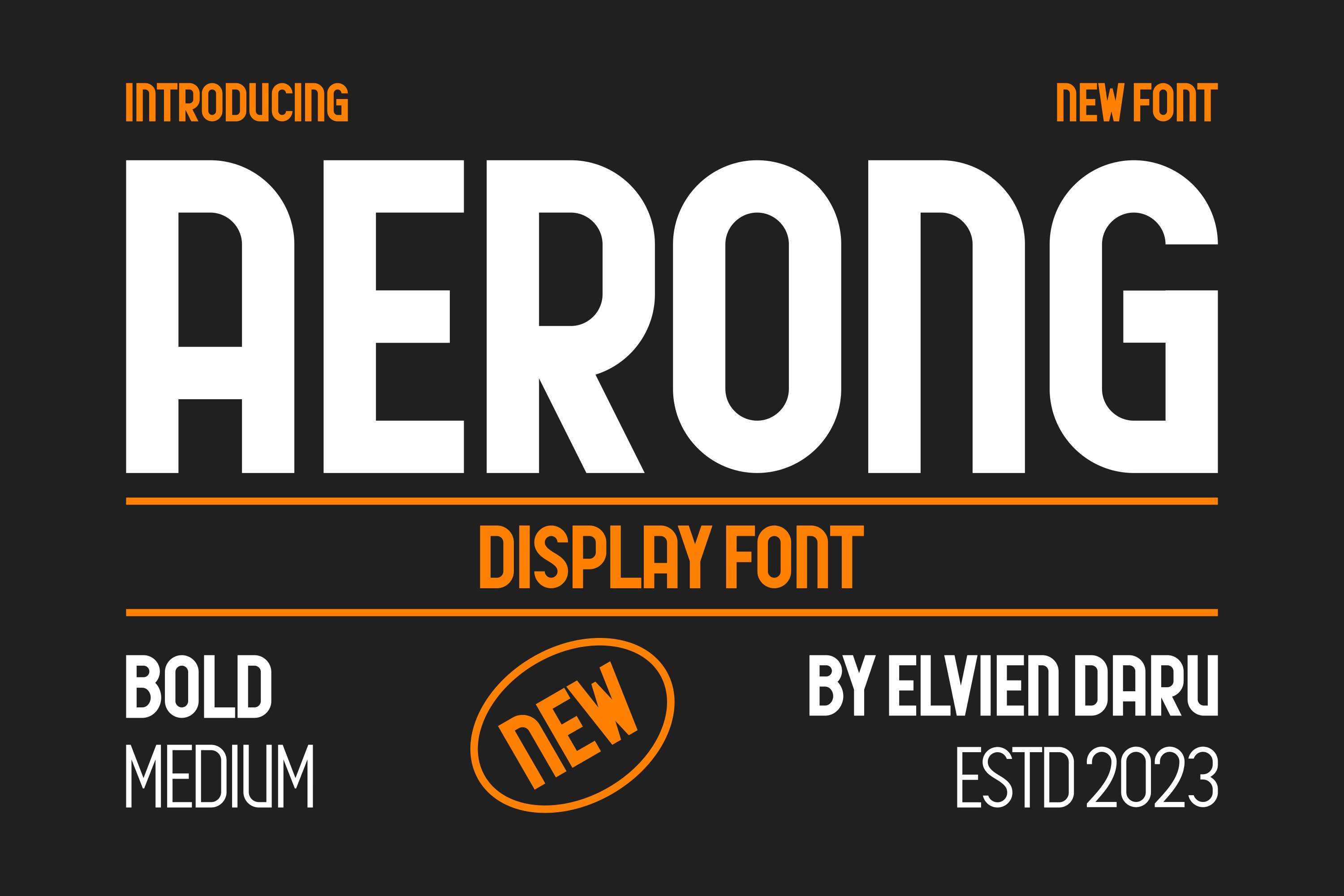
Aerong Vintage Font
Perfectly suited on print/screen. it’s perfect for Branding, name card, poster, logo, magazine, cover, banner, t-shirt and headers, or even large-scale artwork.